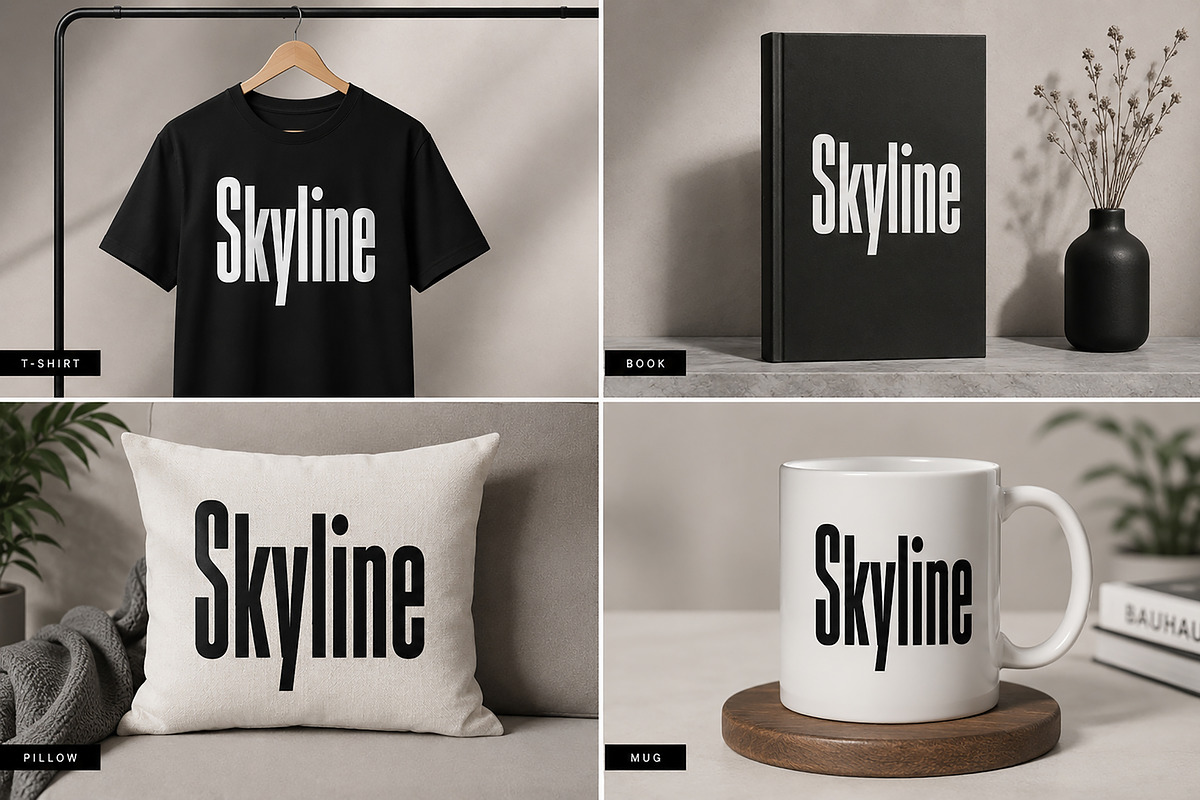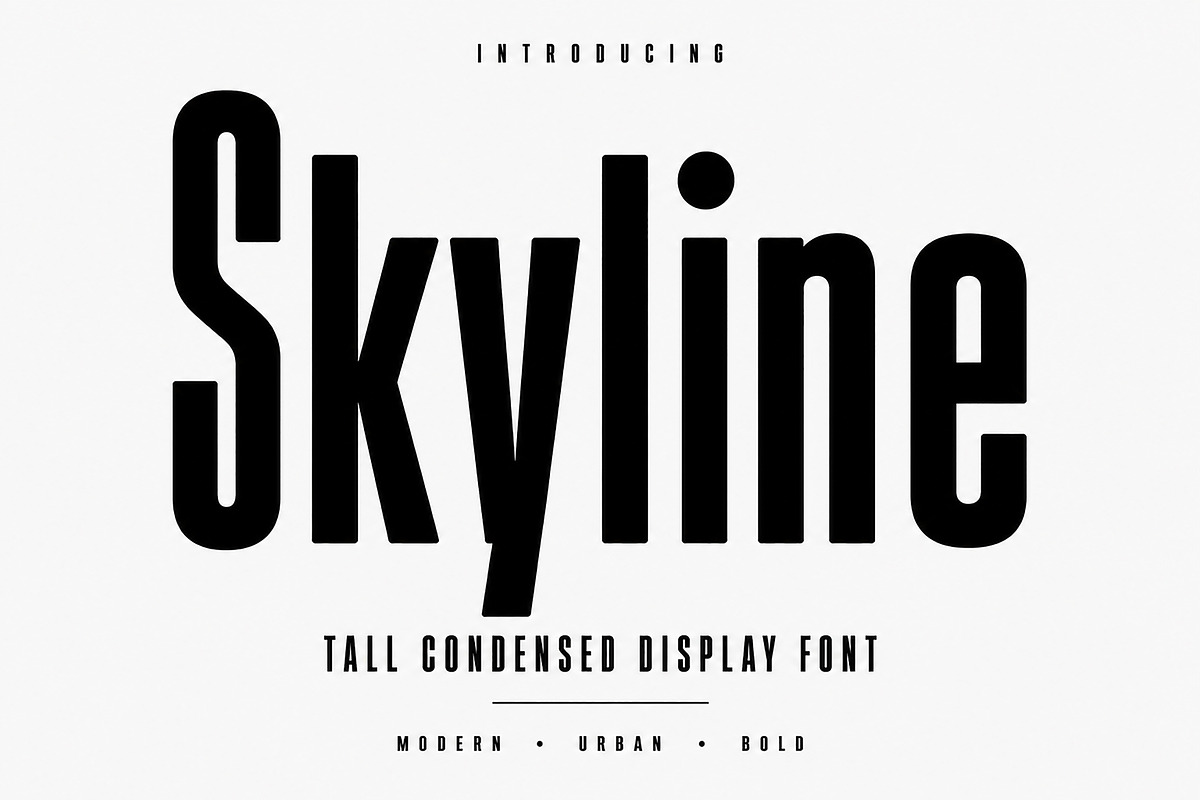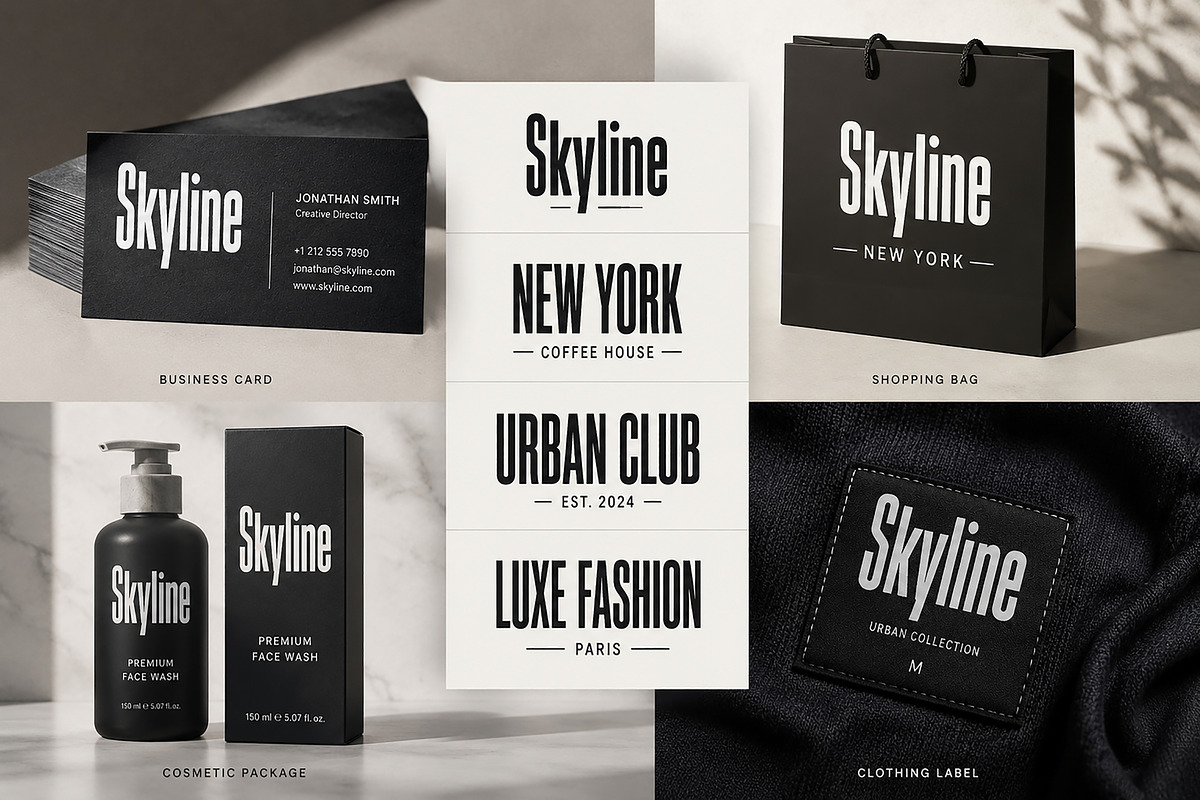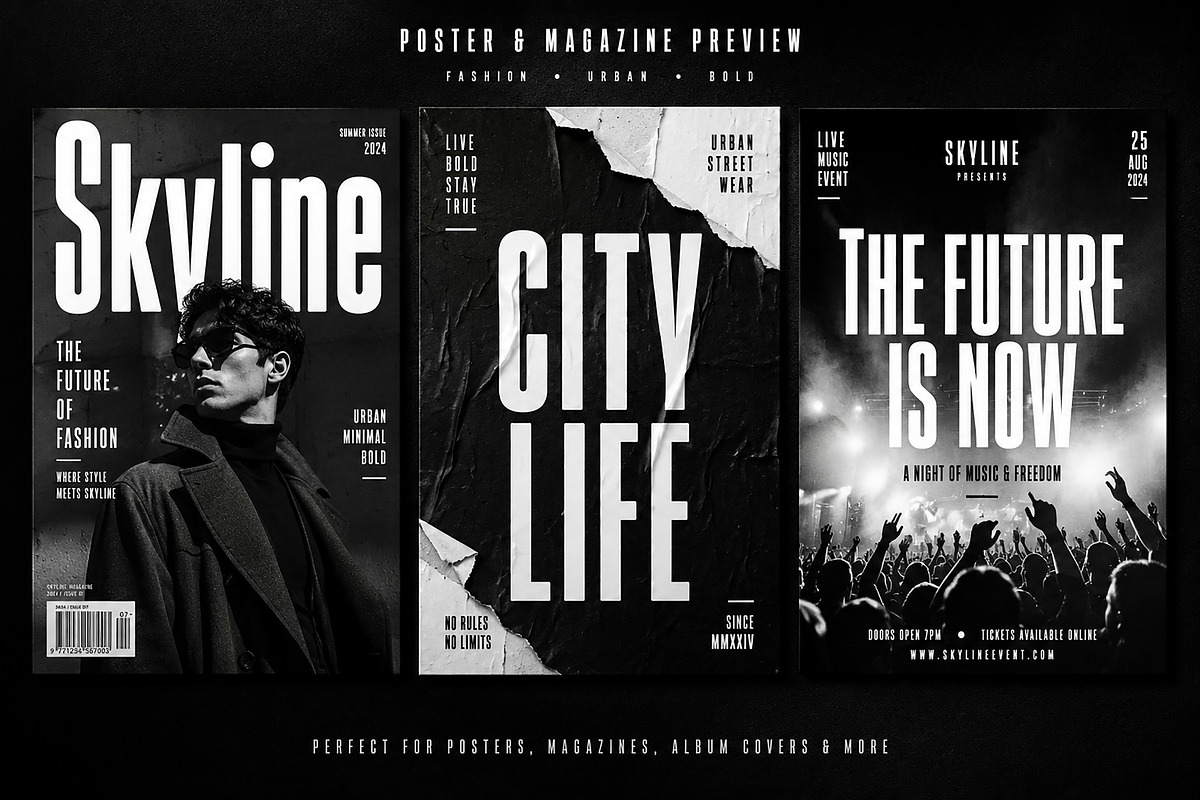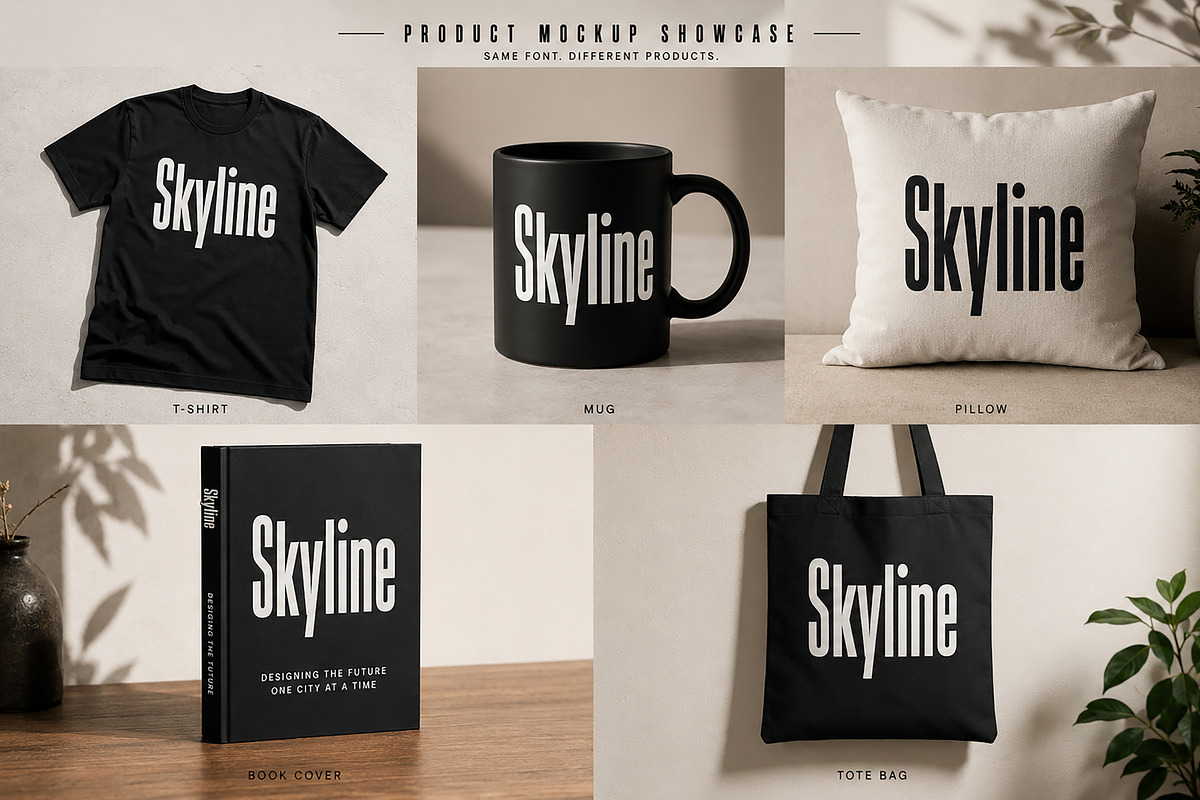
Skyline
Skyline – Tall Condensed Display Font
Skyline is a bold and modern tall condensed display font designed to make a strong visual impact. With its clean geometric structure, narrow proportions, and urban-inspired character, Skyline is perfect for headlines, branding, logos, posters, magazine covers, packaging, apparel designs, social media graphics, and contemporary advertising projects.
Whether you're creating a fashion campaign, streetwear branding, editorial layouts, event posters, or product packaging, Skyline delivers a powerful and confident presence that instantly captures attention.
Its sleek vertical style combines modern minimalism with strong visual energy, making it an excellent choice for designers seeking a professional and distinctive display typeface.
Branding Projects
Fashion & Streetwear
Posters & Flyers
Magazine Covers
Editorial Design
T-Shirts & Merchandise
Advertising Campaigns
Product Mockups
Headlines & Titles
High-Quality Display Typeface
Clean & Modern Design
Create bold, modern, and unforgettable designs with Skyline.